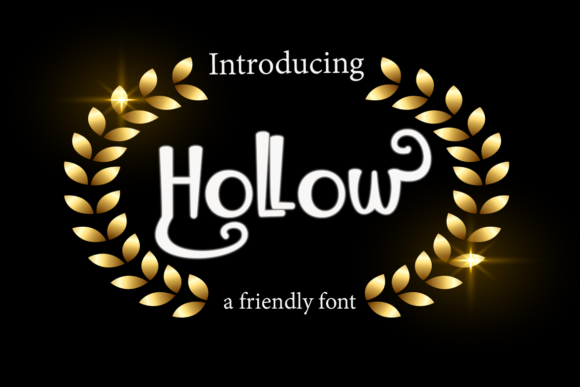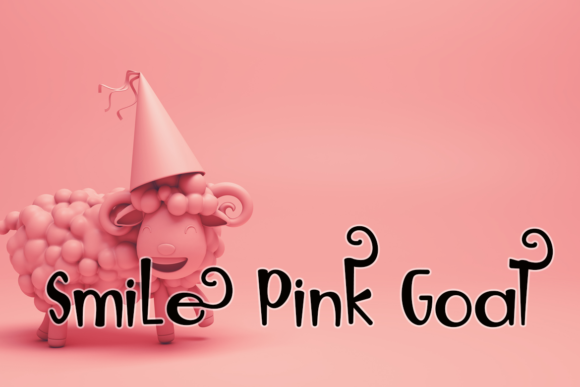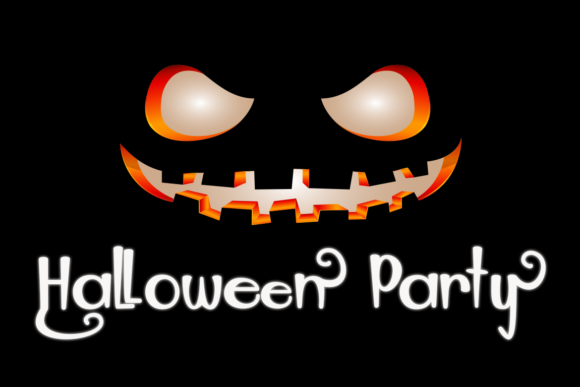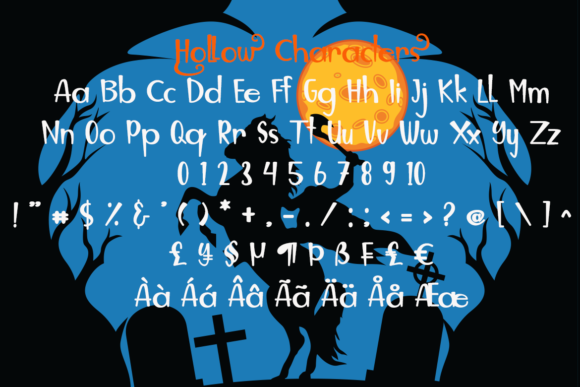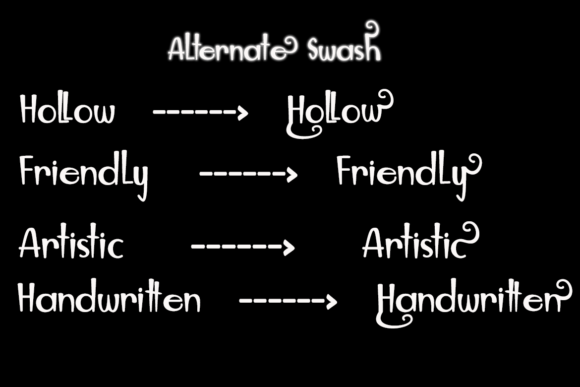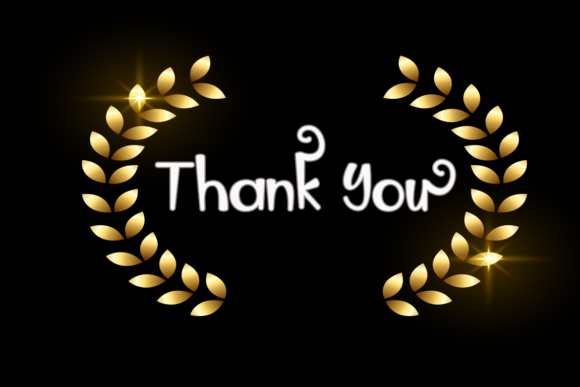
Hollow Font
About Hollow Font
Hollow is a unique handwritten font. It features a luxurious style and stunning belts. Take your designs to the next level with this amazing font!